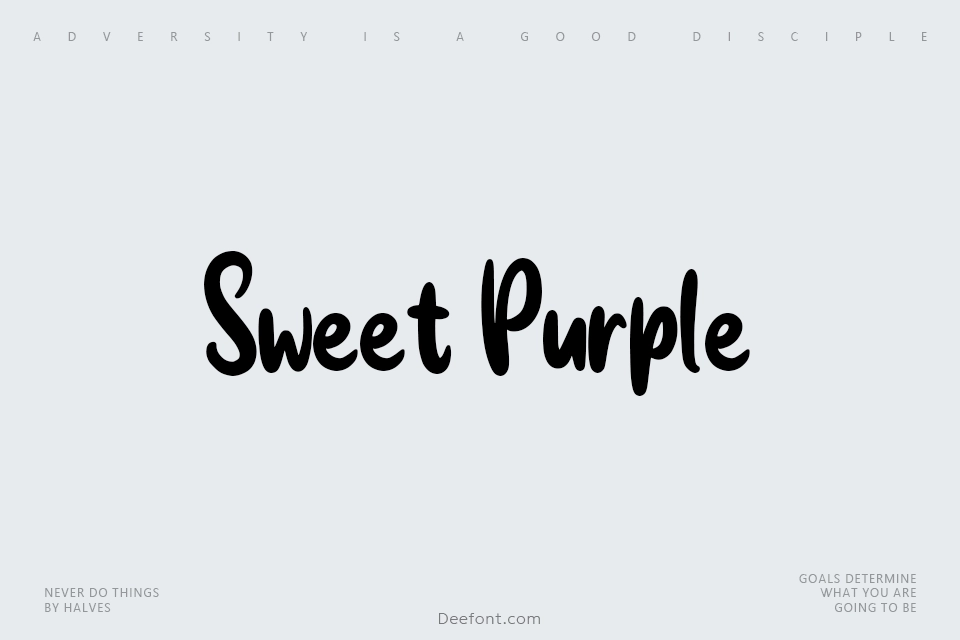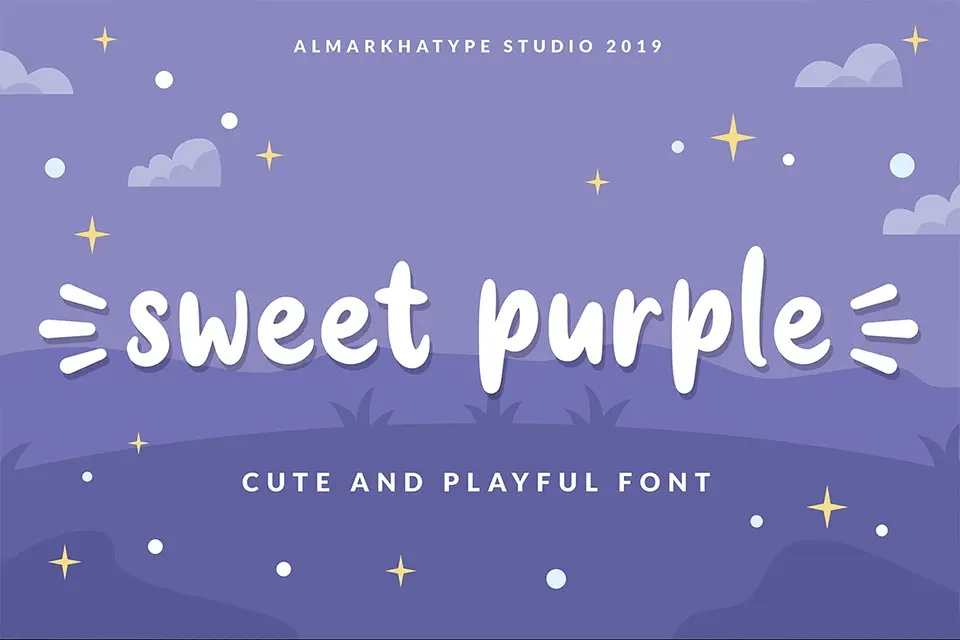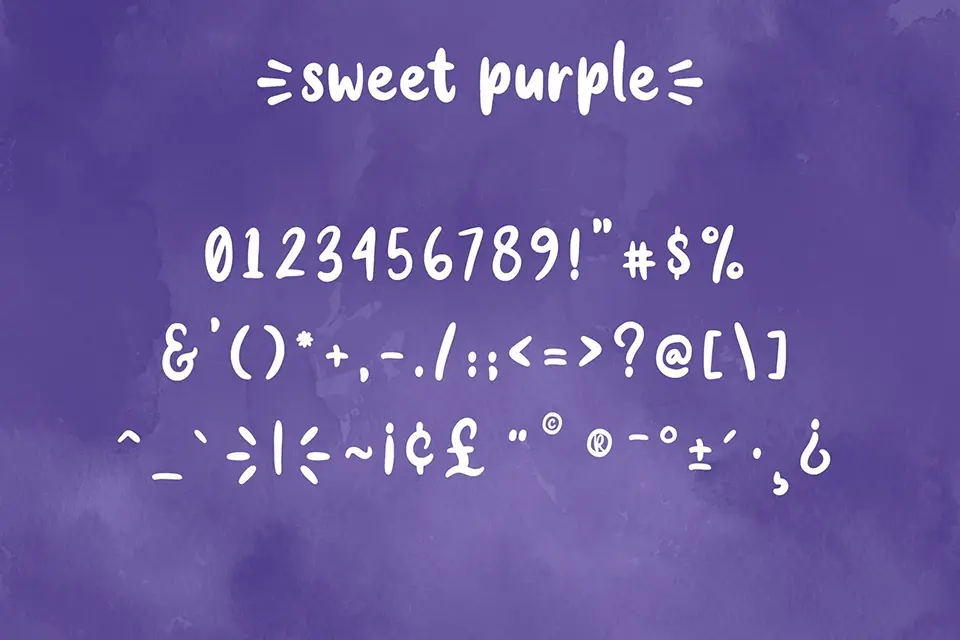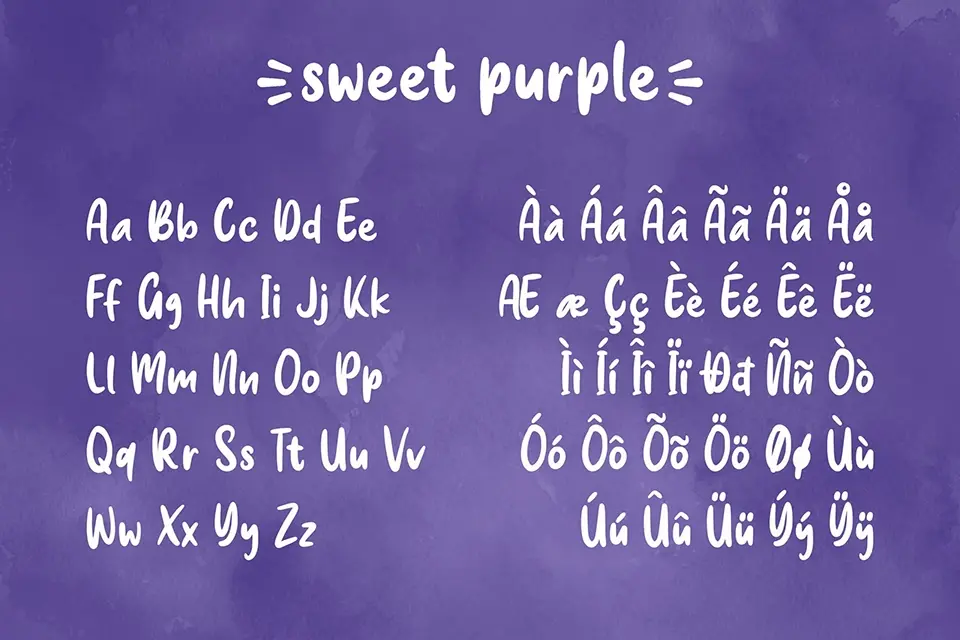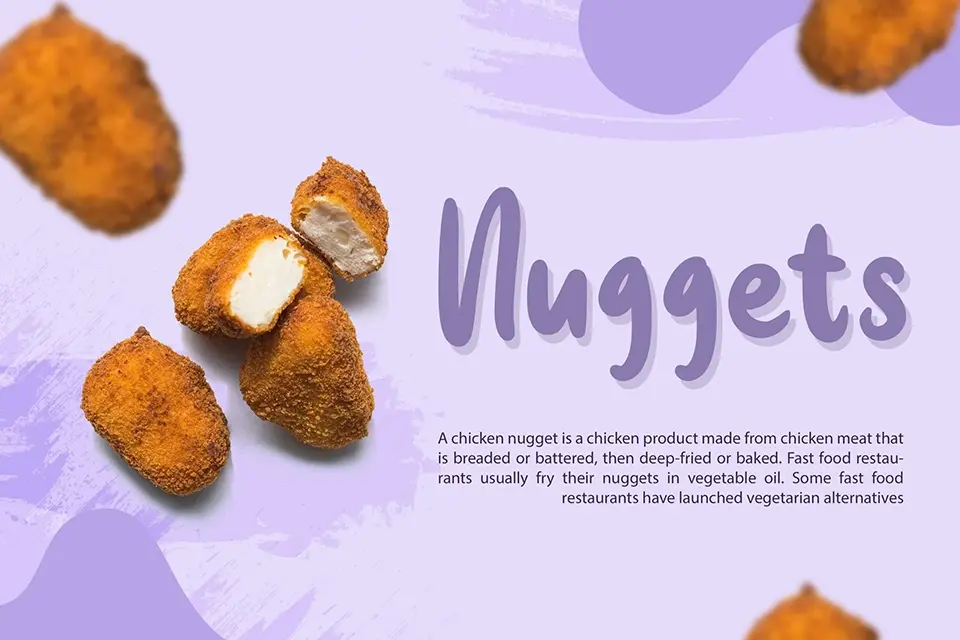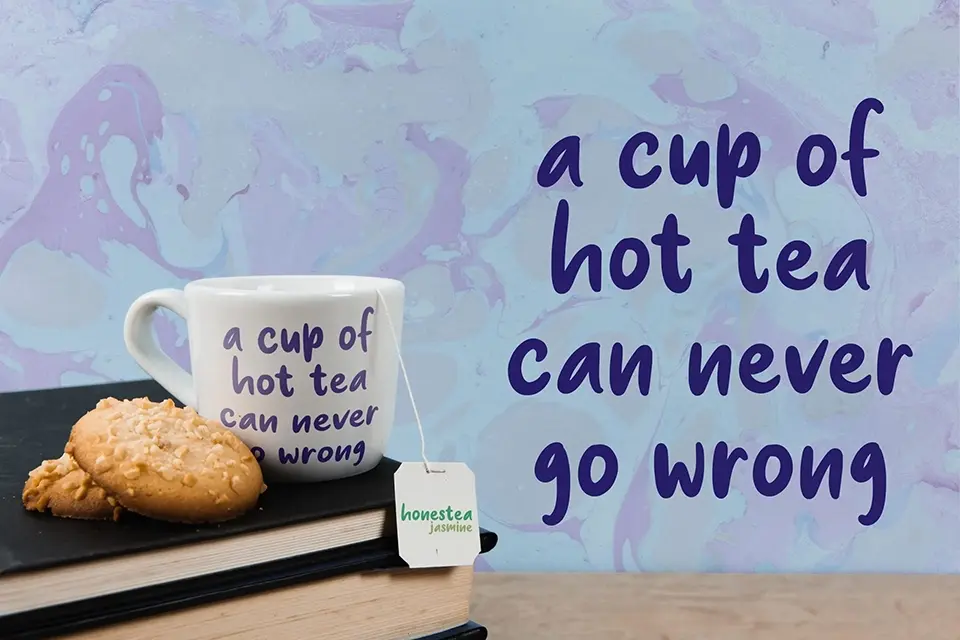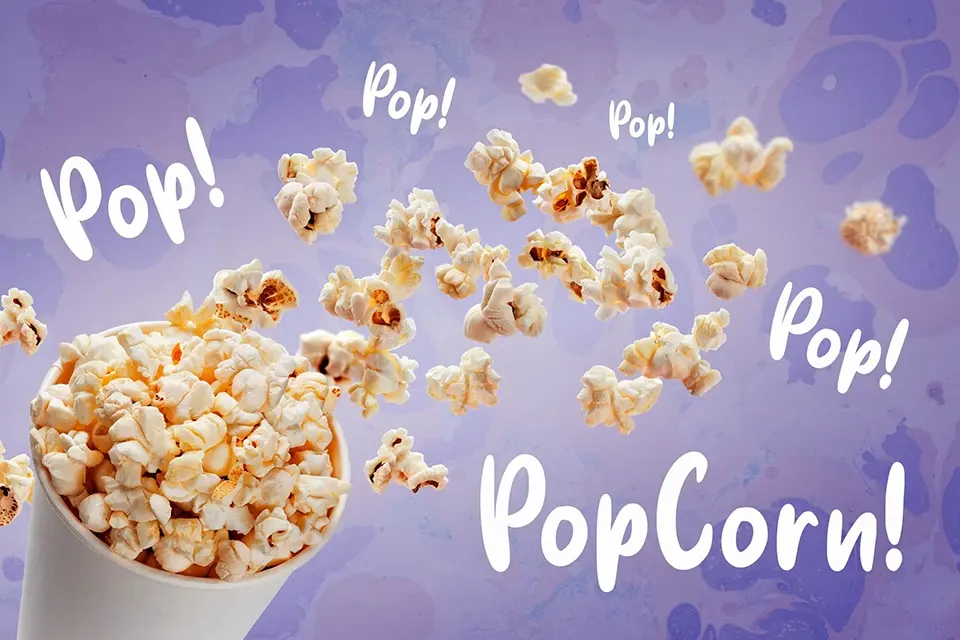
Sweet Purple Font
Sweet Purple is a bold and playful handwritten display font with thick, flexible characters that bring a modern, whimsical charm to any creative project. Perfect for branding, product packaging, greeting cards, posters, labels, and DIY designs, this font combines casual elegance with contemporary flair, making it ideal for projects that demand personality and visual impact.